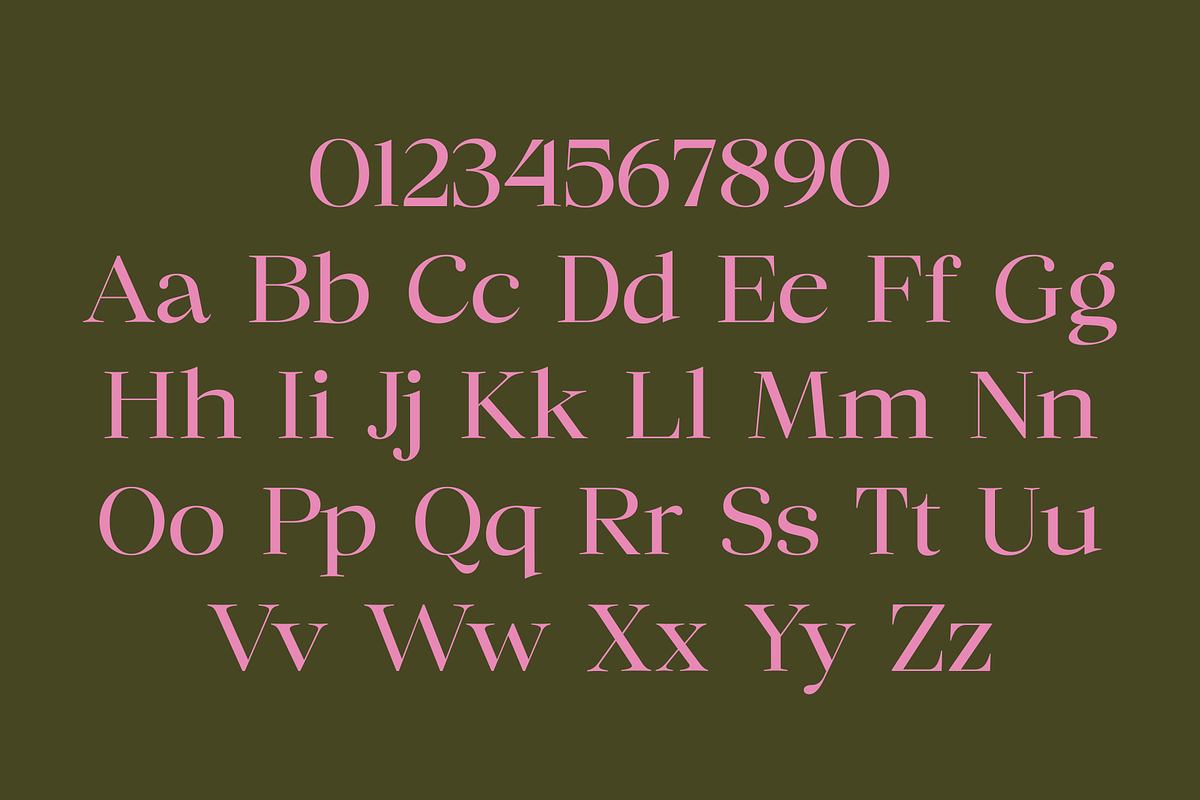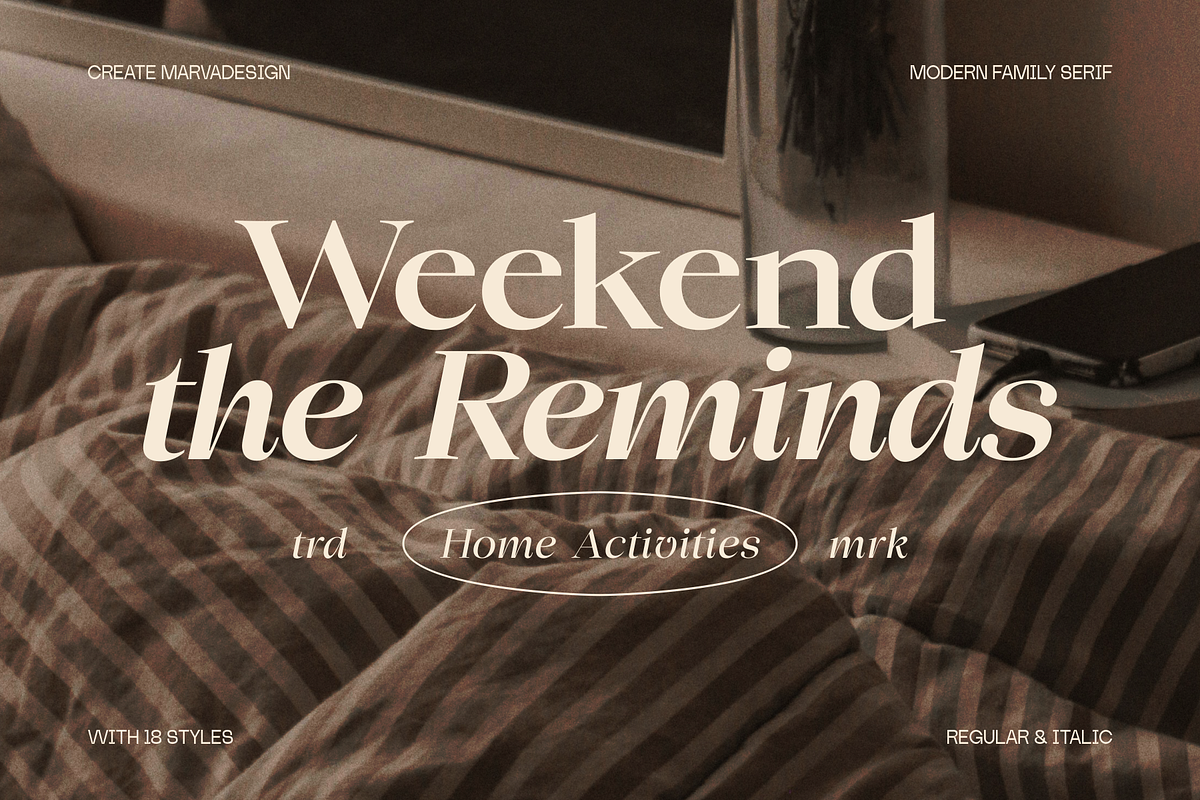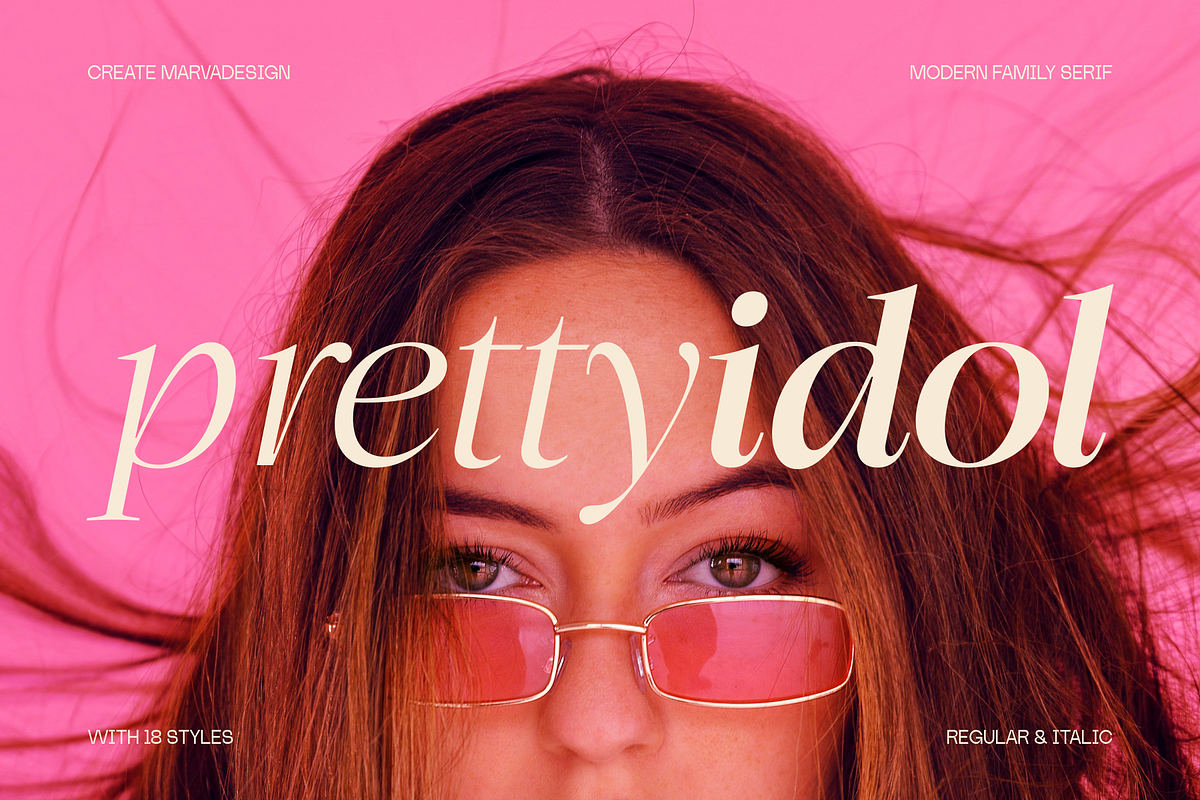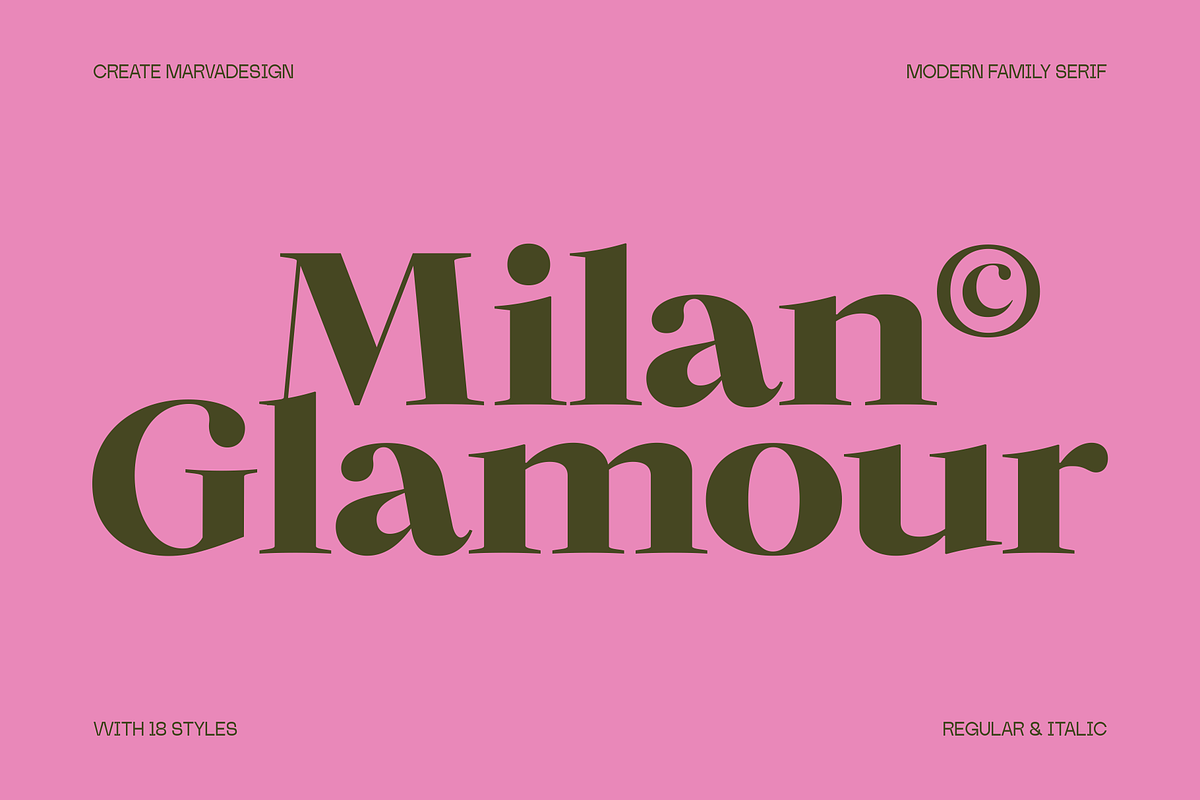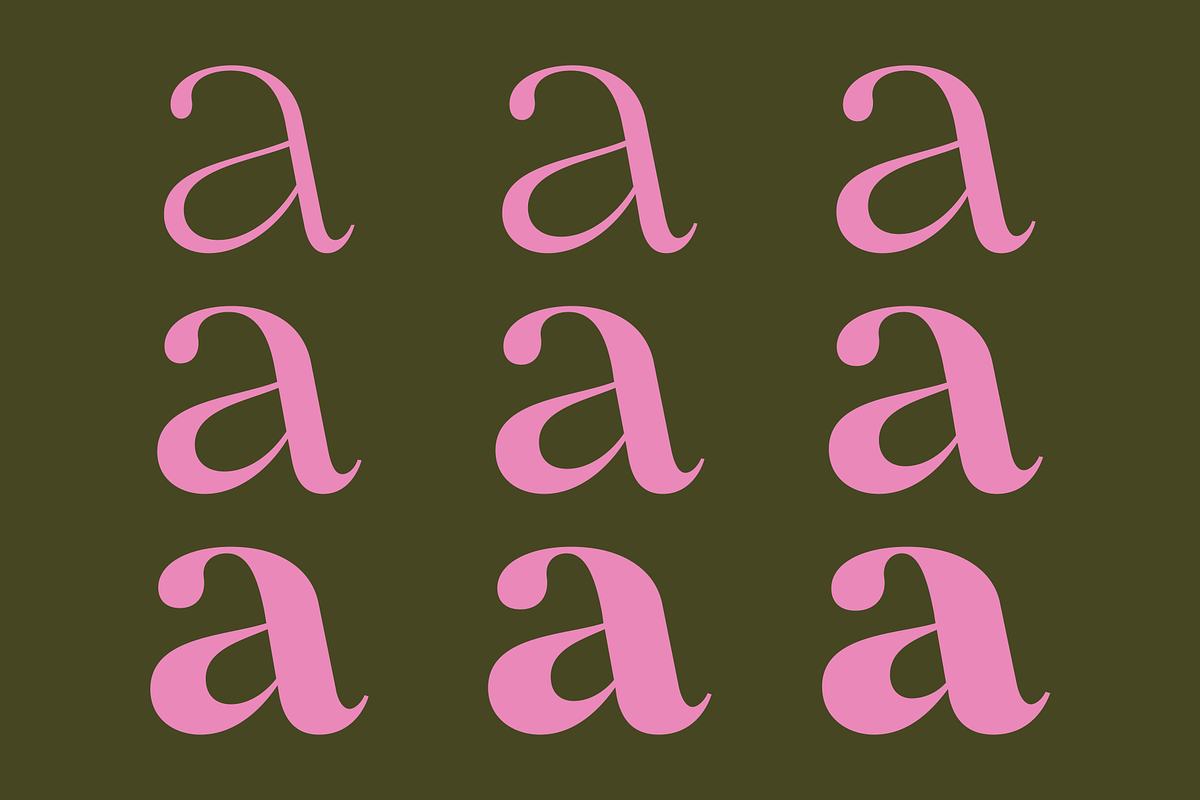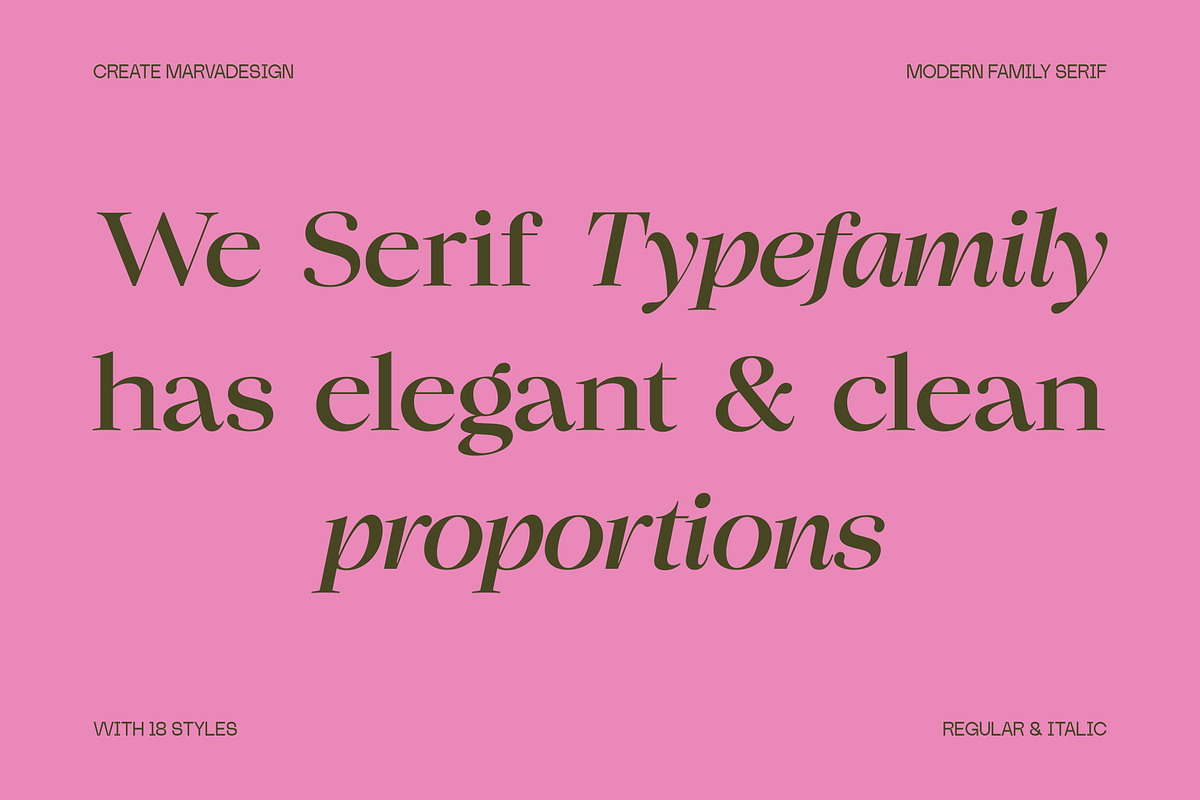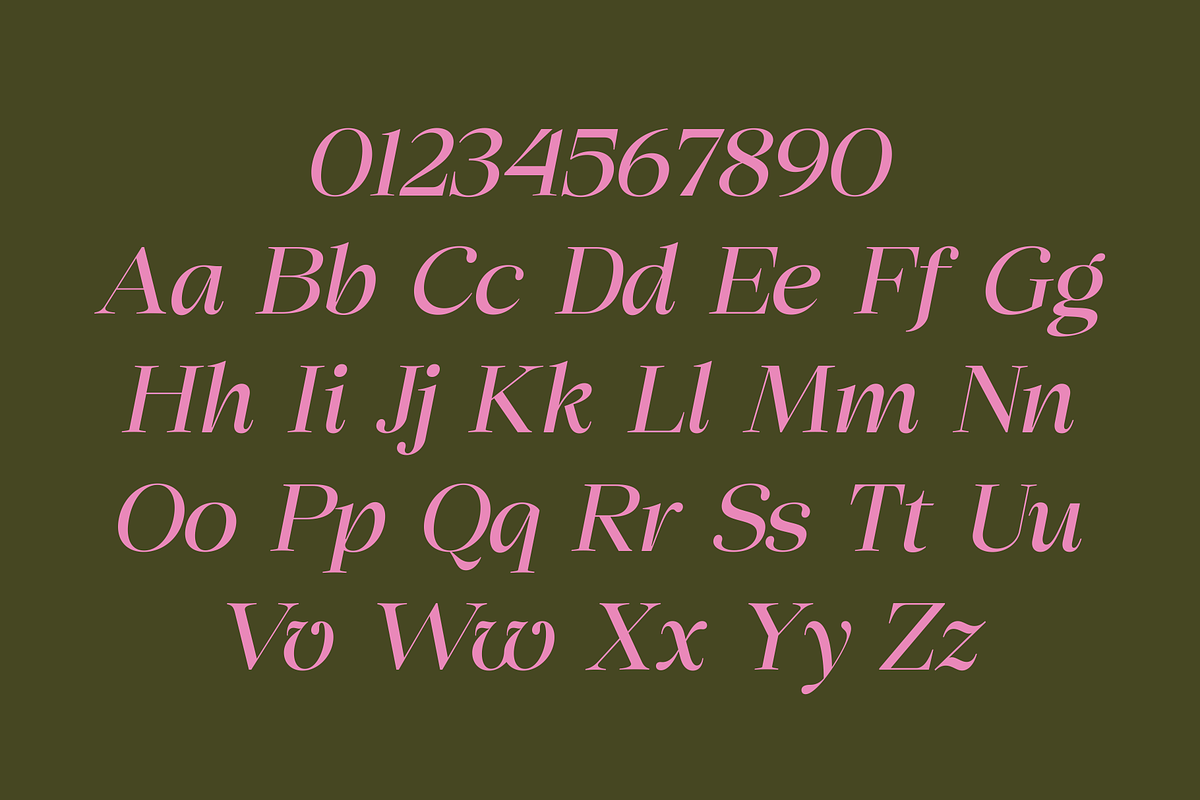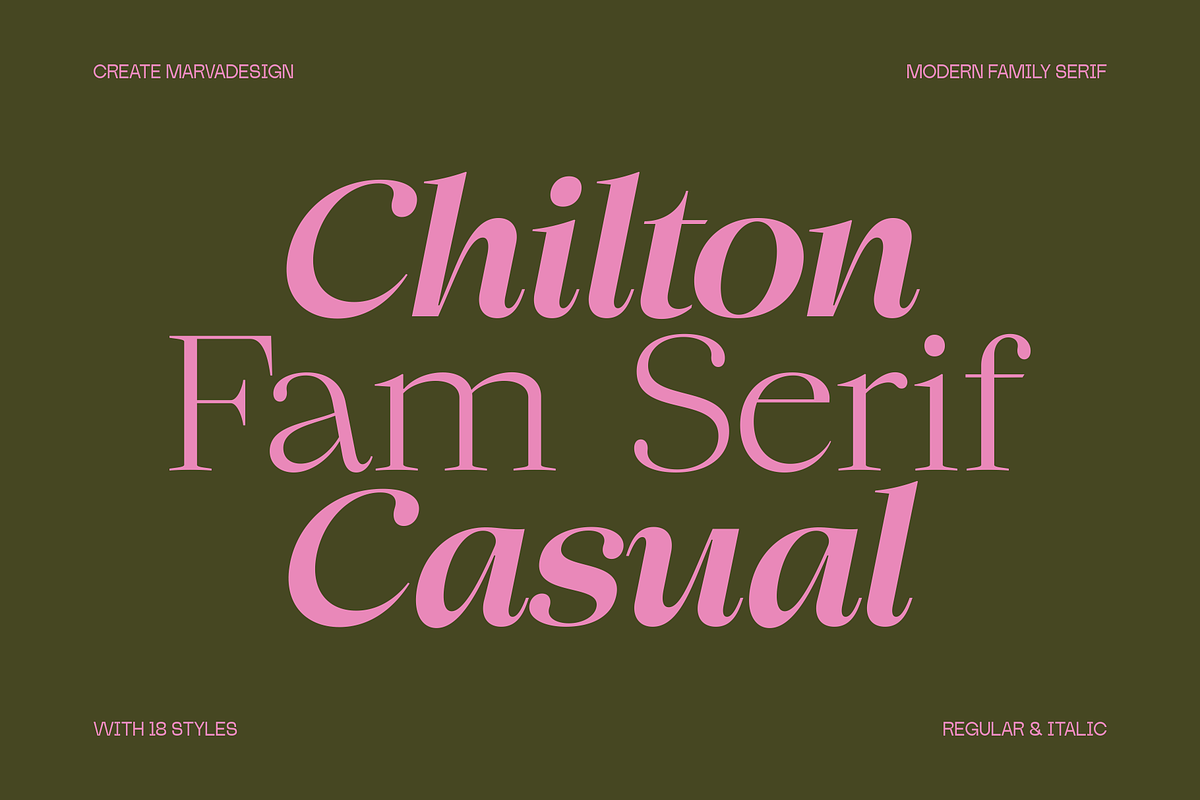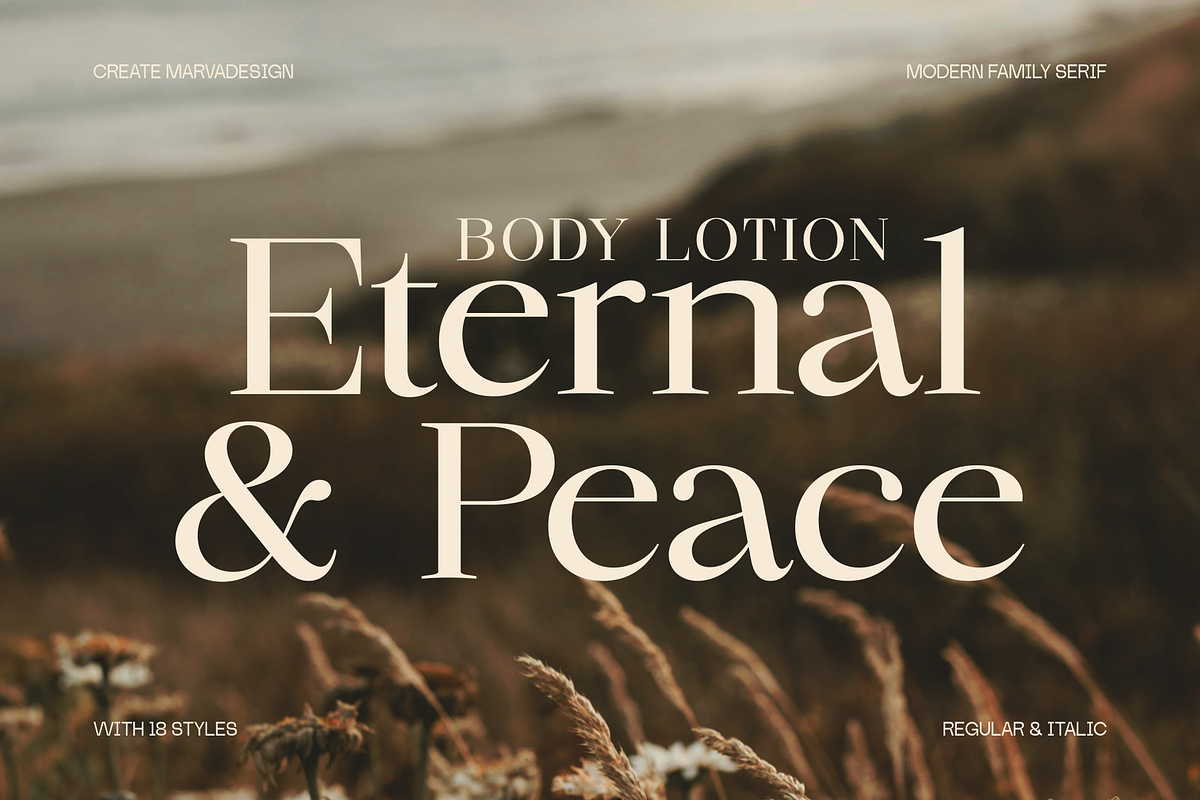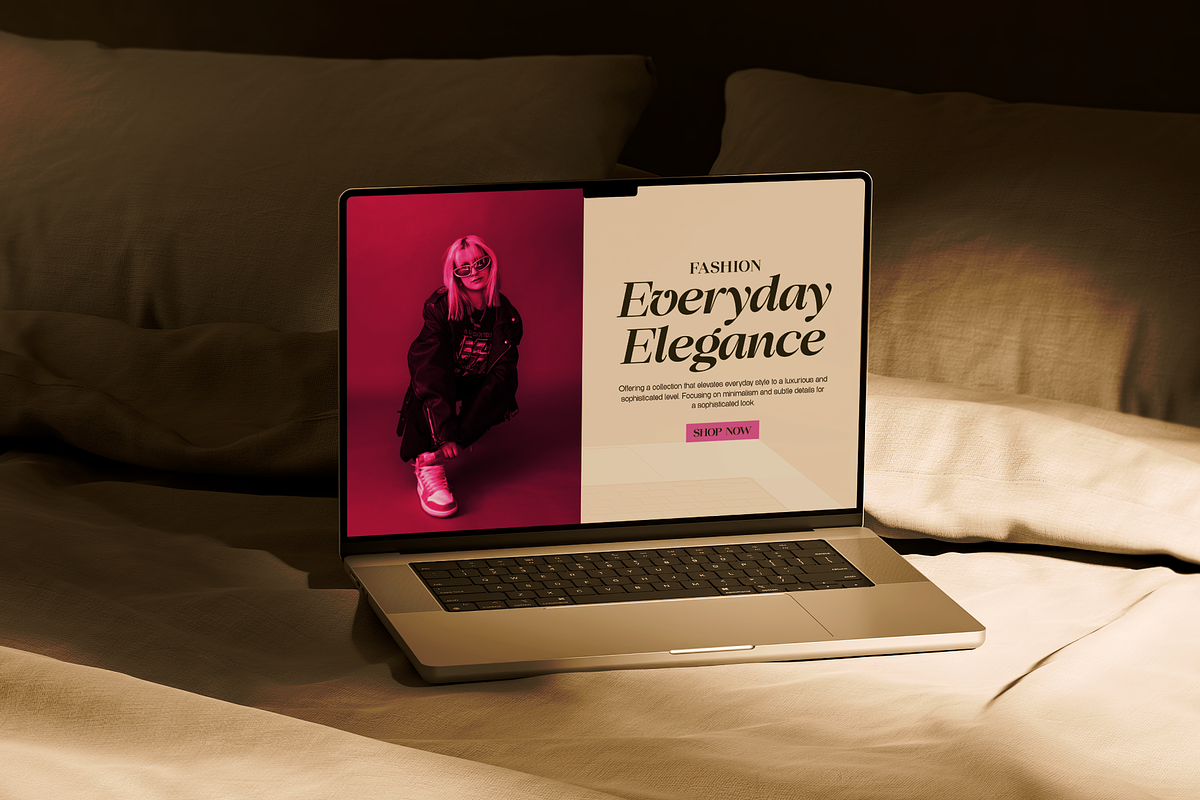
Chilton - Family Serif
Chilton is a modern family serif that blends elegance with a casual touch. Designed with refined proportions and a sophisticated flow, this typeface expresses both confidence and warmth. Featuring 18 styles ranging from Regular to Italic, Chilton offers versatility for a wide variety of design needs from editorial layouts to branding. Its smooth curves, sharp serifs, and balanced contrast give it a timeless yet contemporary personality, making it ideal for projects that seek both style and readability.
The styles include
- Thin
- Thin Italic
- ExtraLight
- ExtraLight Italic
- Light
- Light Italic
- Regular Italic
- Medium
- Medium Italic
- SemiBold
- SemiBold Italic
- Bold
- Bold Italic
- Extra Bold
- Extra Bold Italic
- Black
- Black Italic